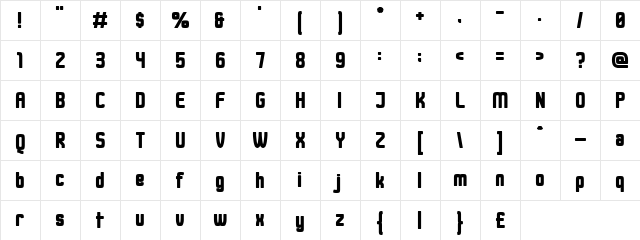
Duster AB Thick Free Font
Duster AB Thick
Foundry: Alex Banks
Designer: Alex Banks
Design Context for Duster AB
Duster AB is a composed and adaptable typeface that performs quietly and consistently across a wide range of design contexts.